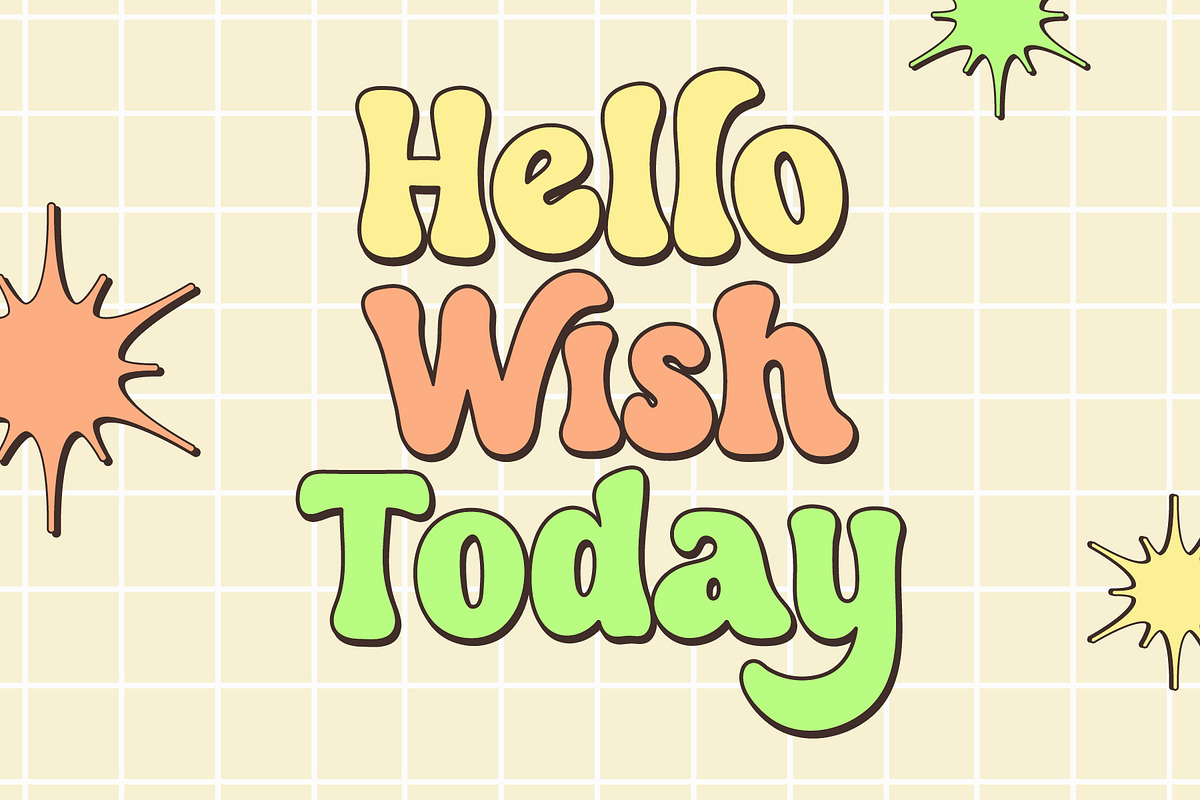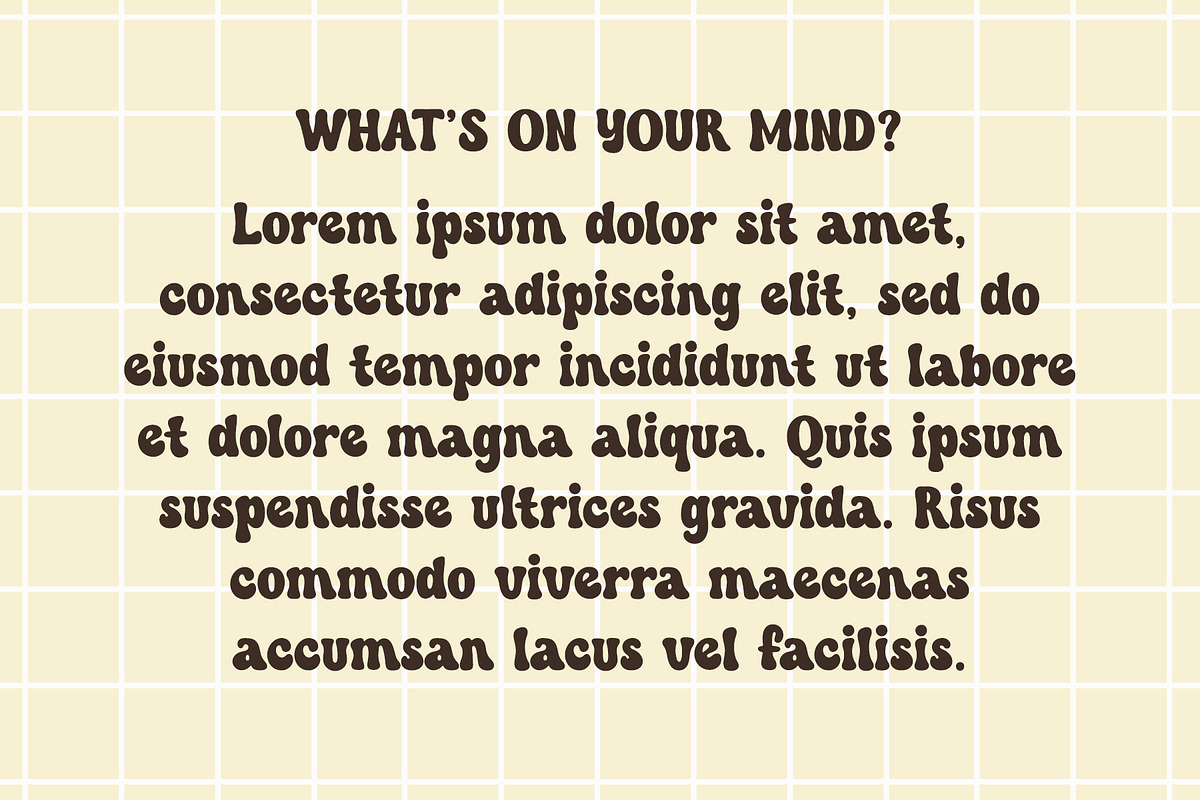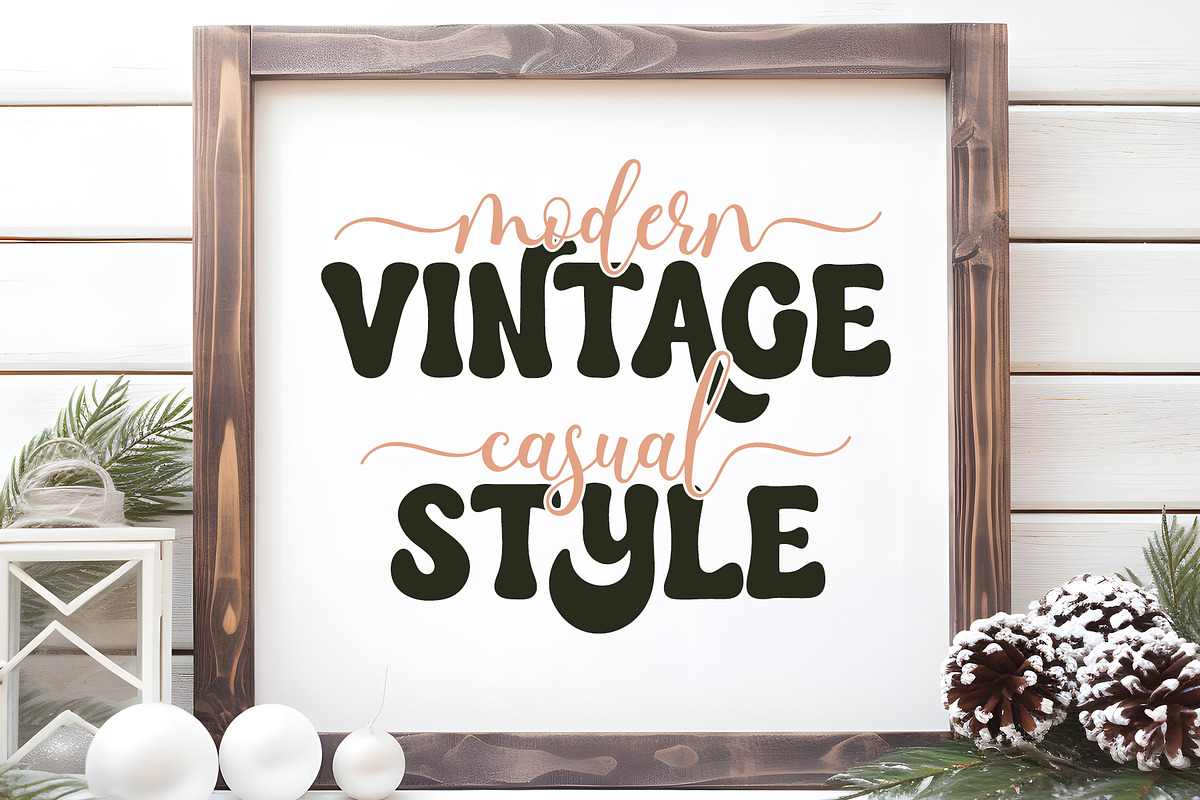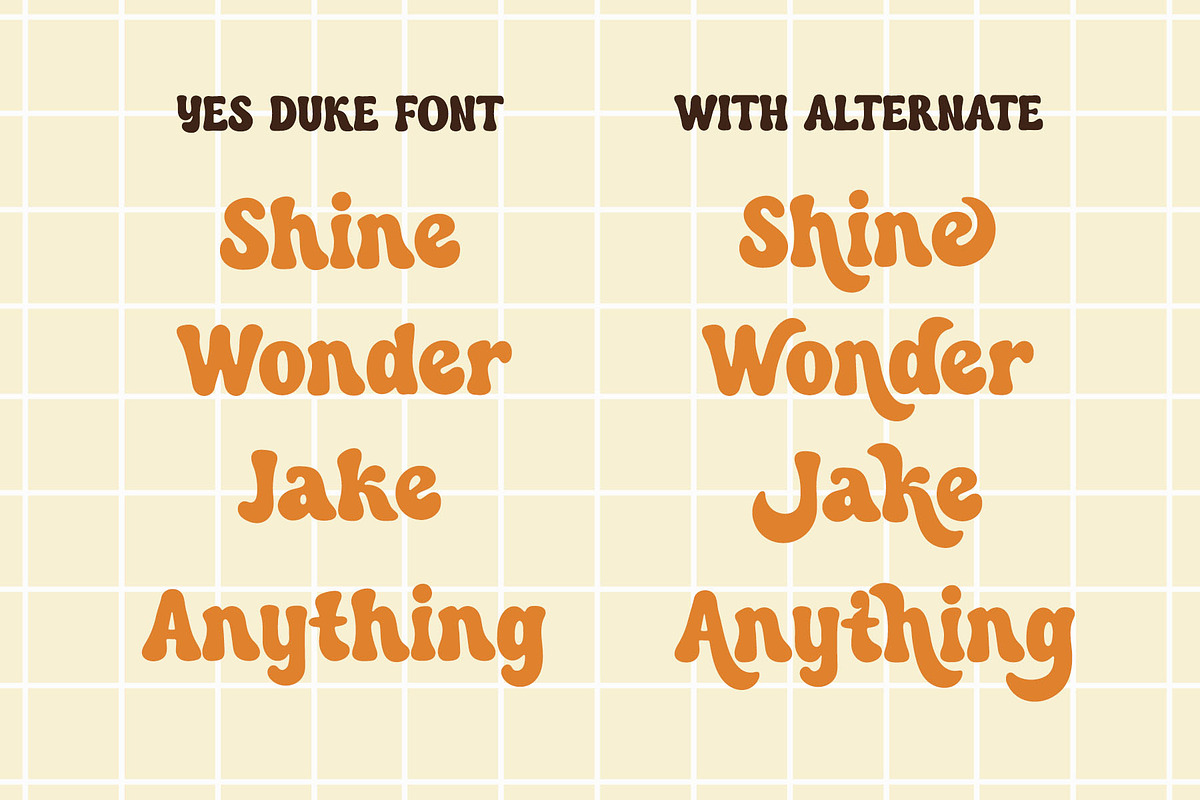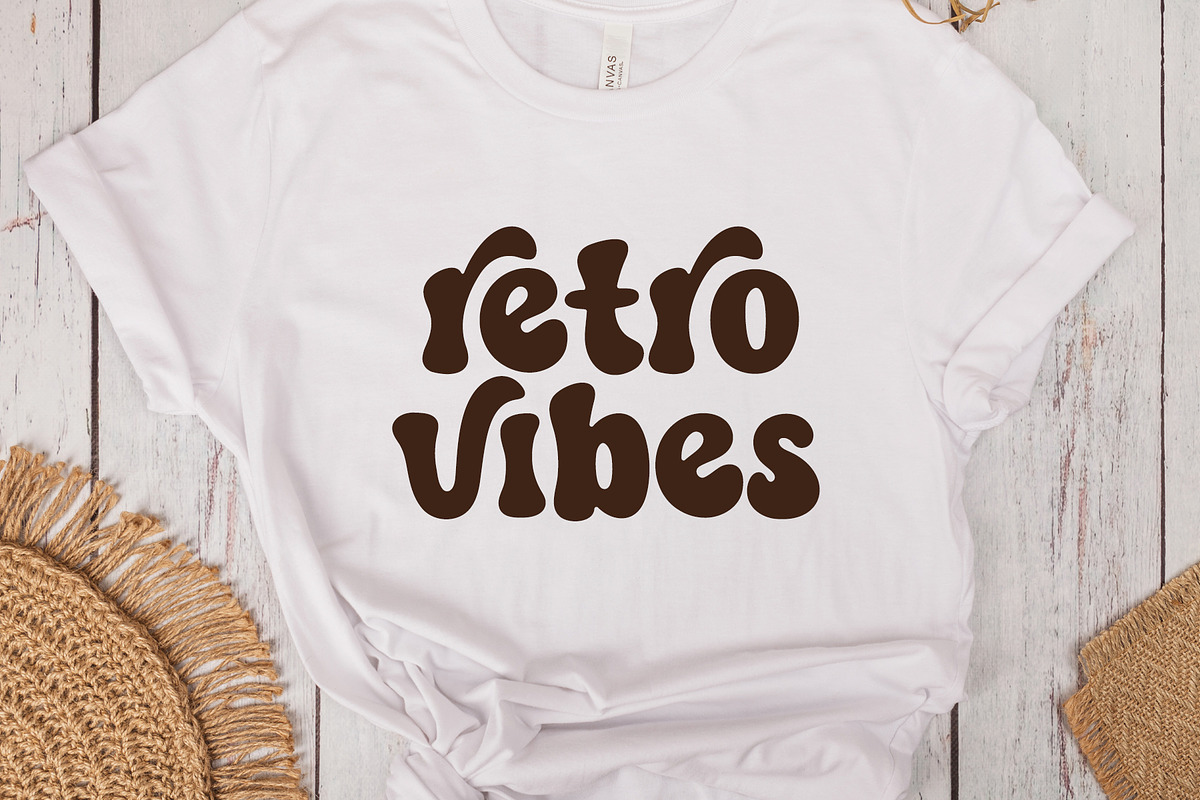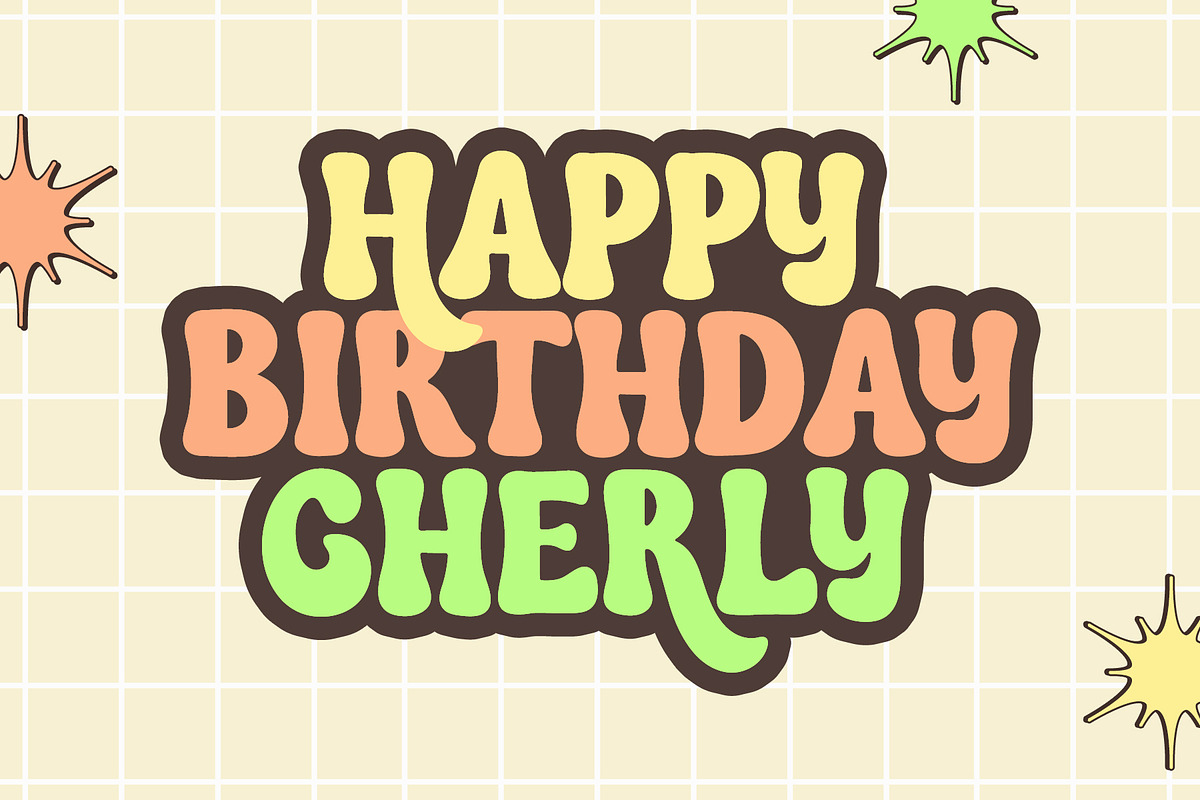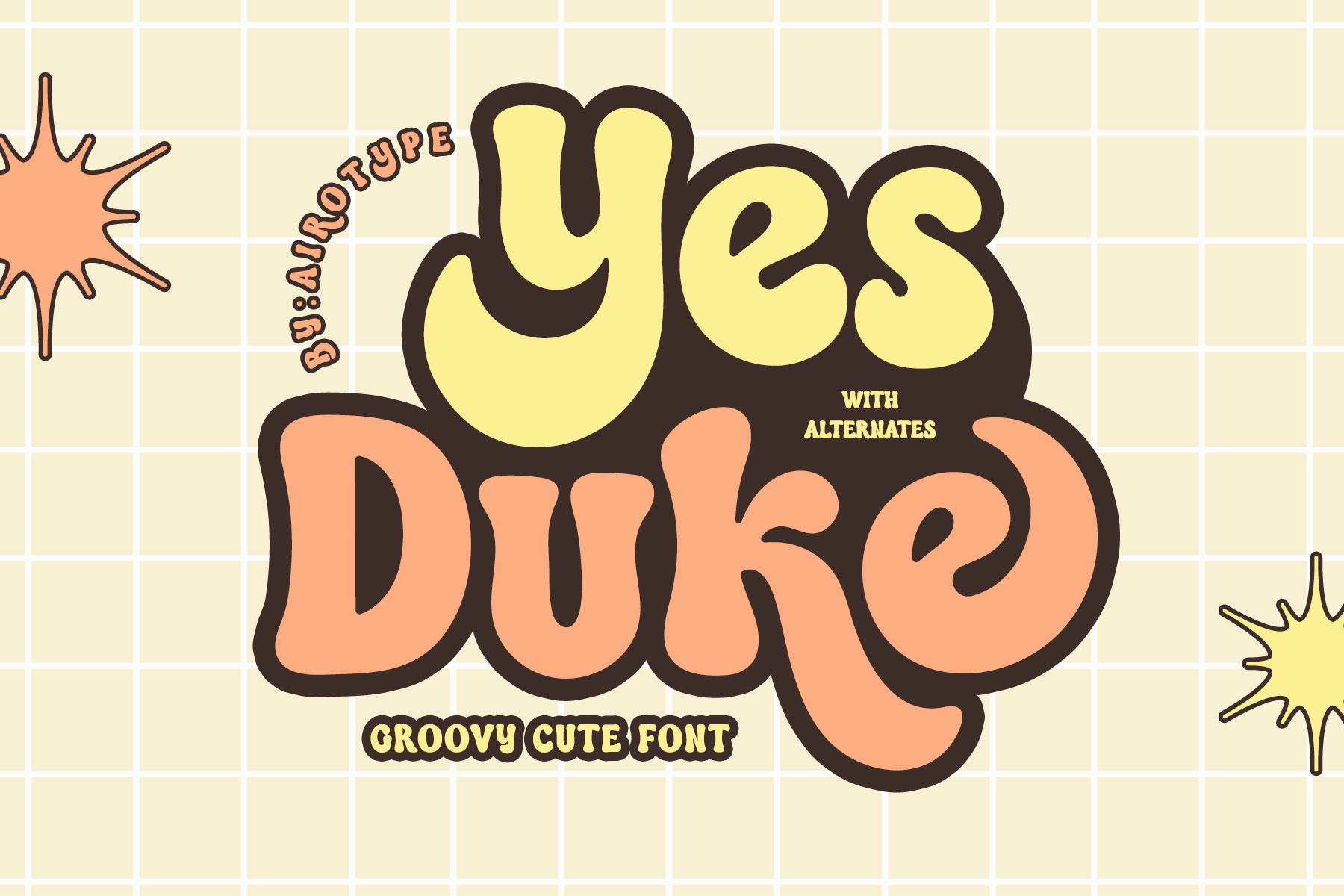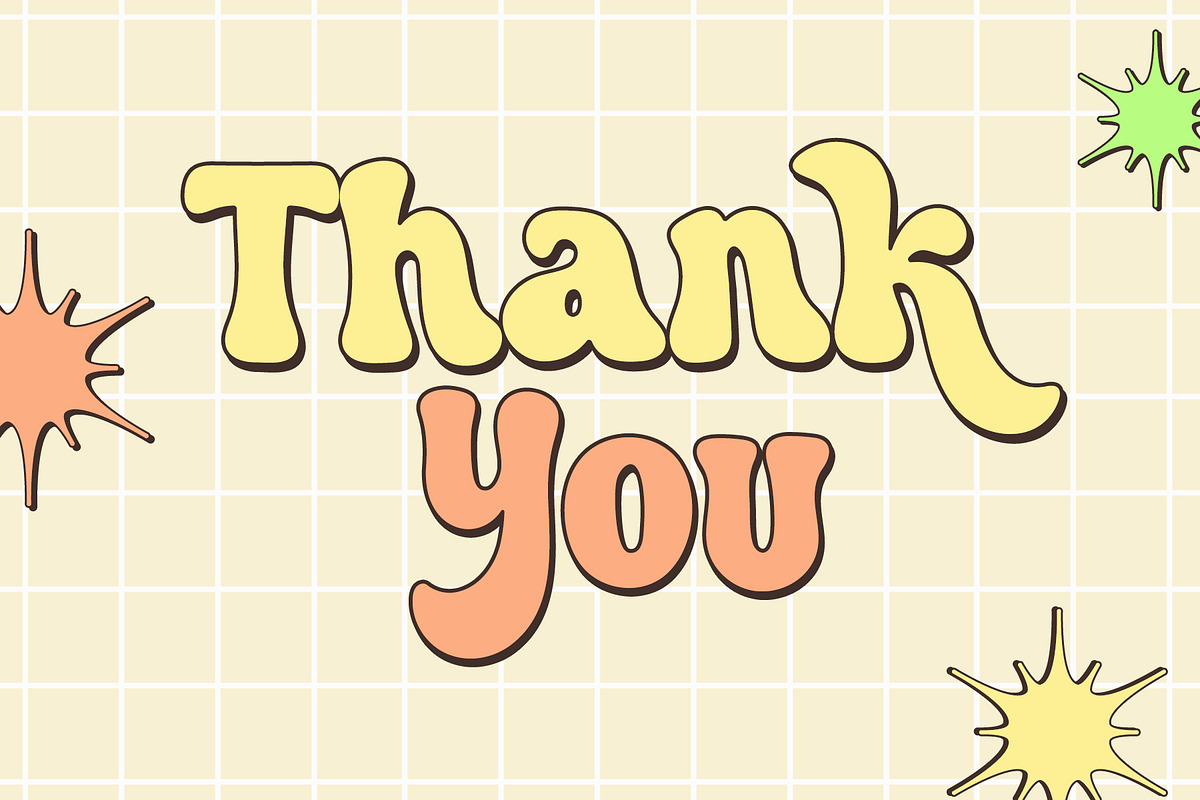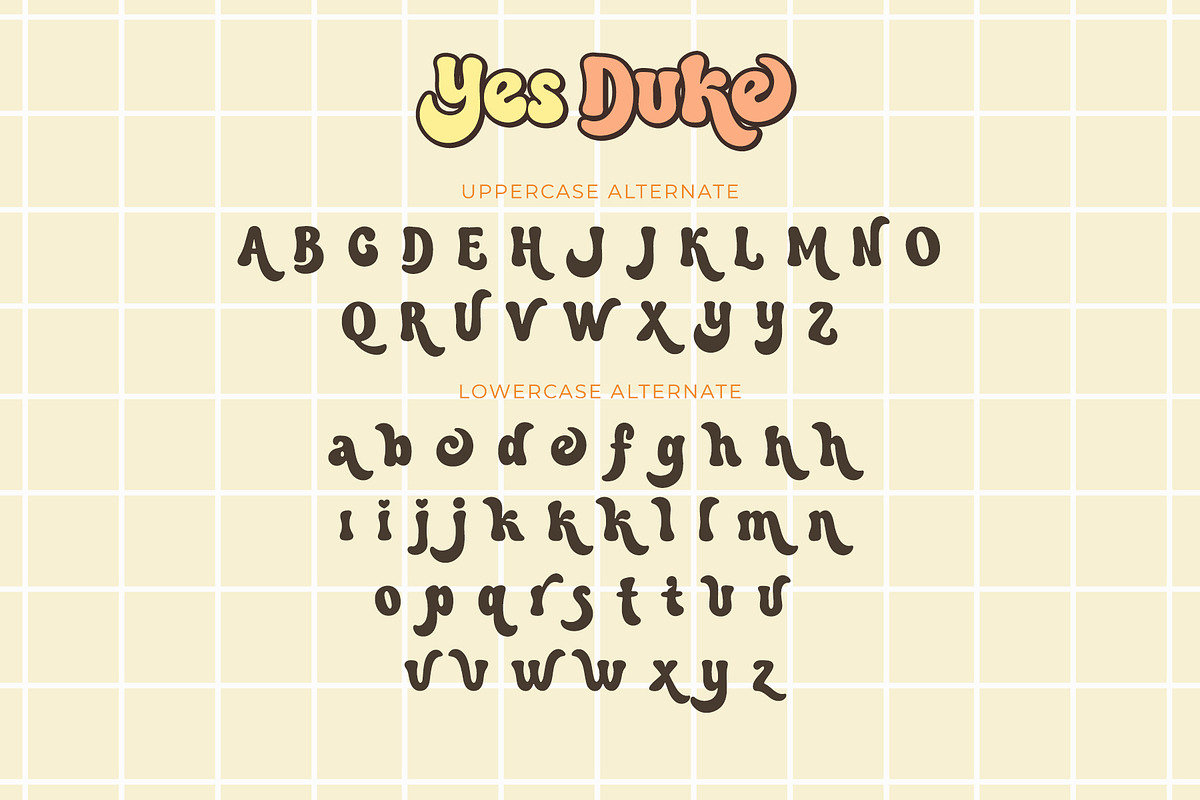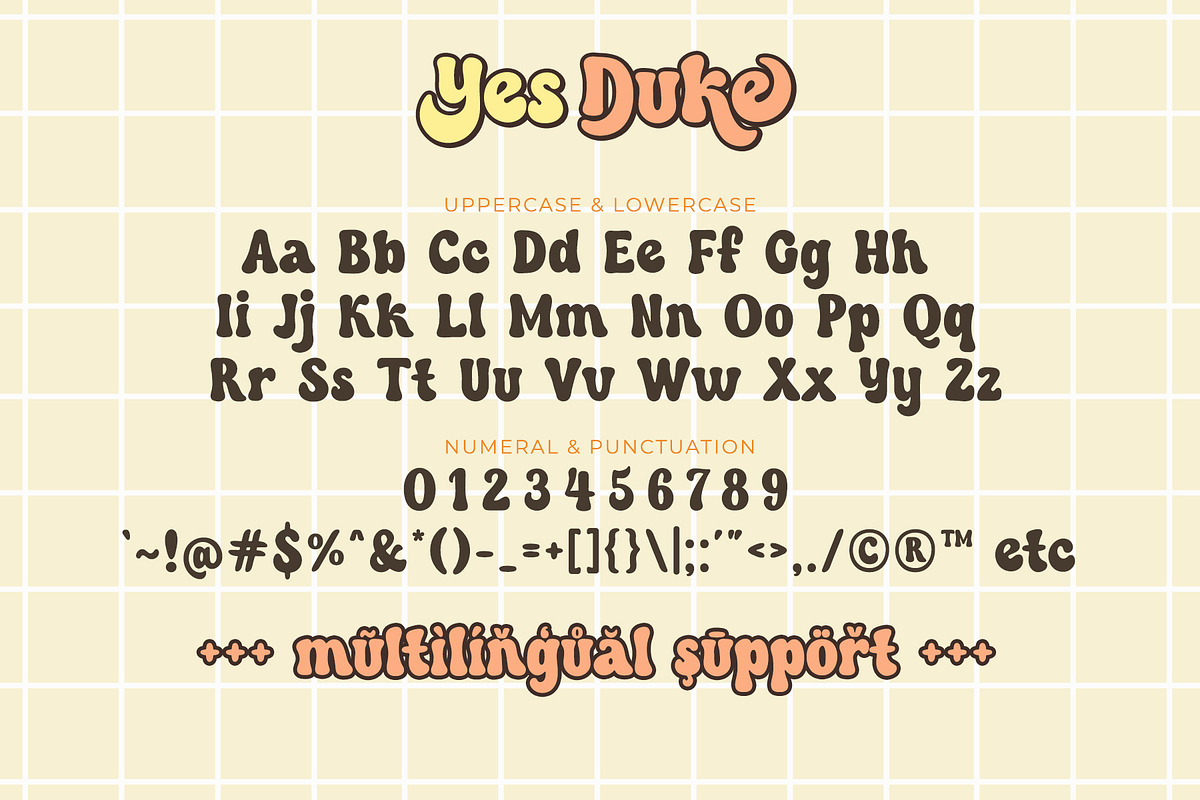
Yes Duke - Cute Retro Groovy Font
Yes Duke is bouncy retro serif font. This font radiates cuteness and vintage style.
It has some extra glyphs/alternates for uppercase and lowercase to give more options in designing.
This font is pretty font for design with cute and retro touch, such as back to school design, kids design, birthday invitation, summer design, t-shirt design, crafting, sticker, sublimation, and many more.
Uppercase & Lowercase (with alternates)
Numeral and Punctuation
Most Multilingual Accent